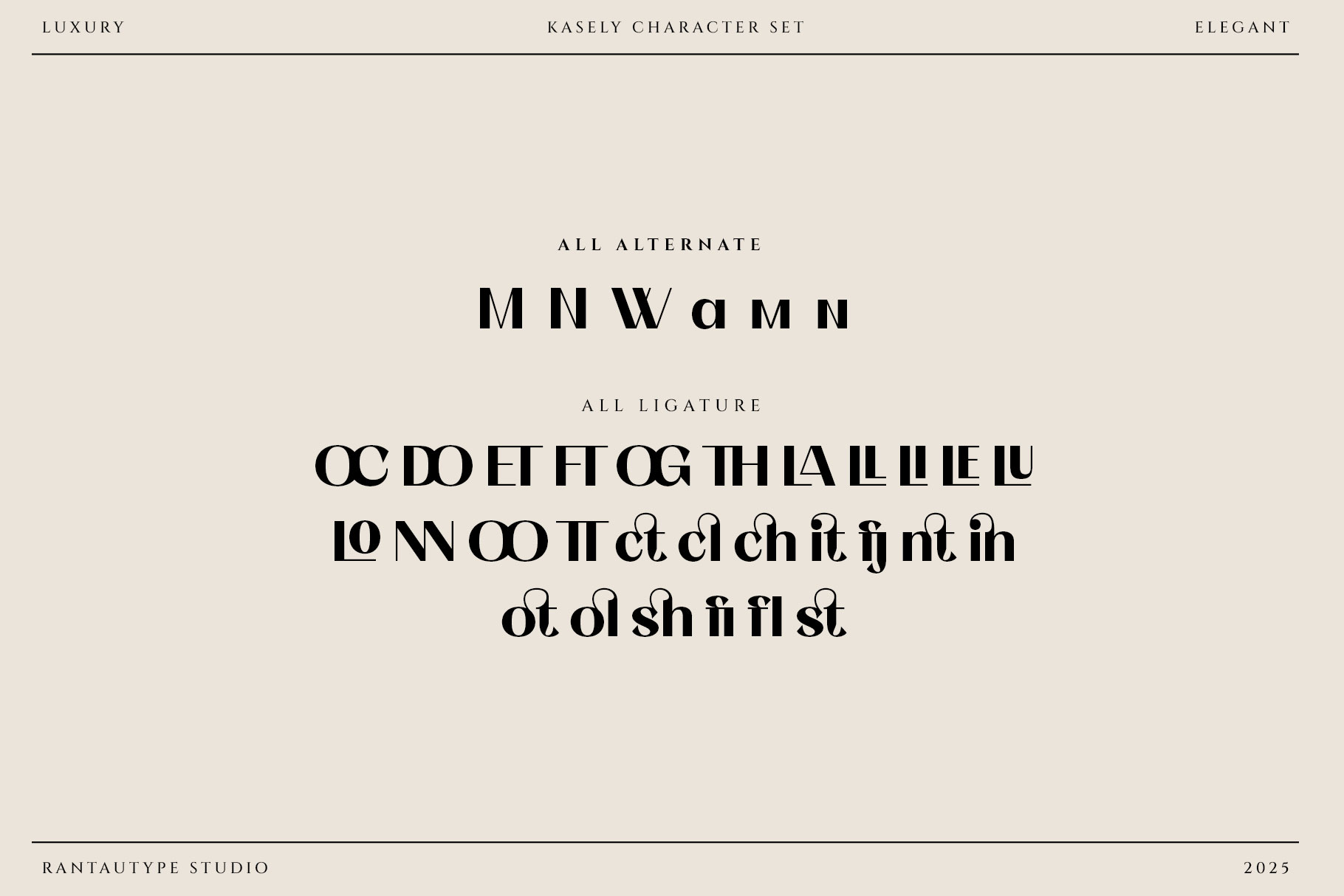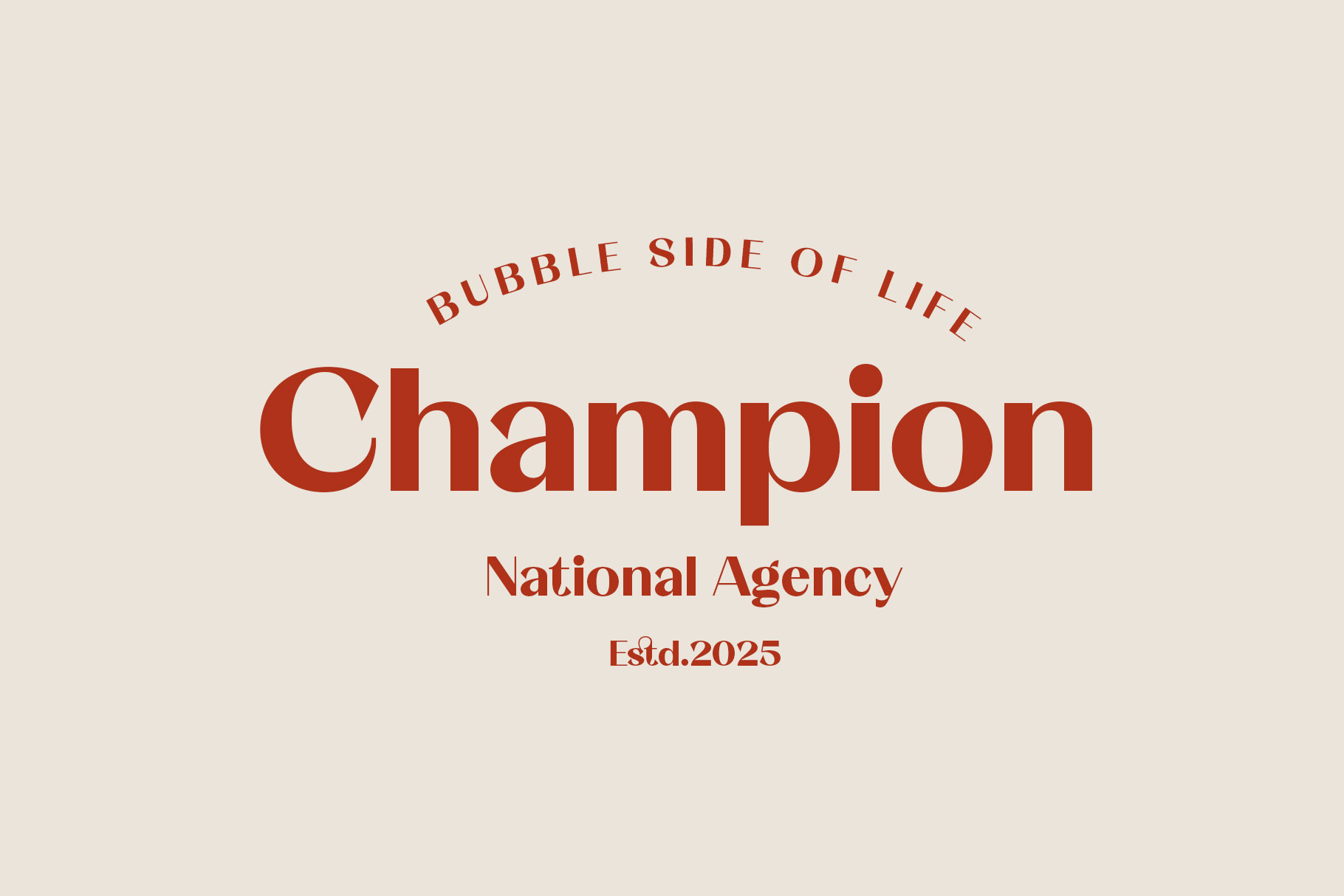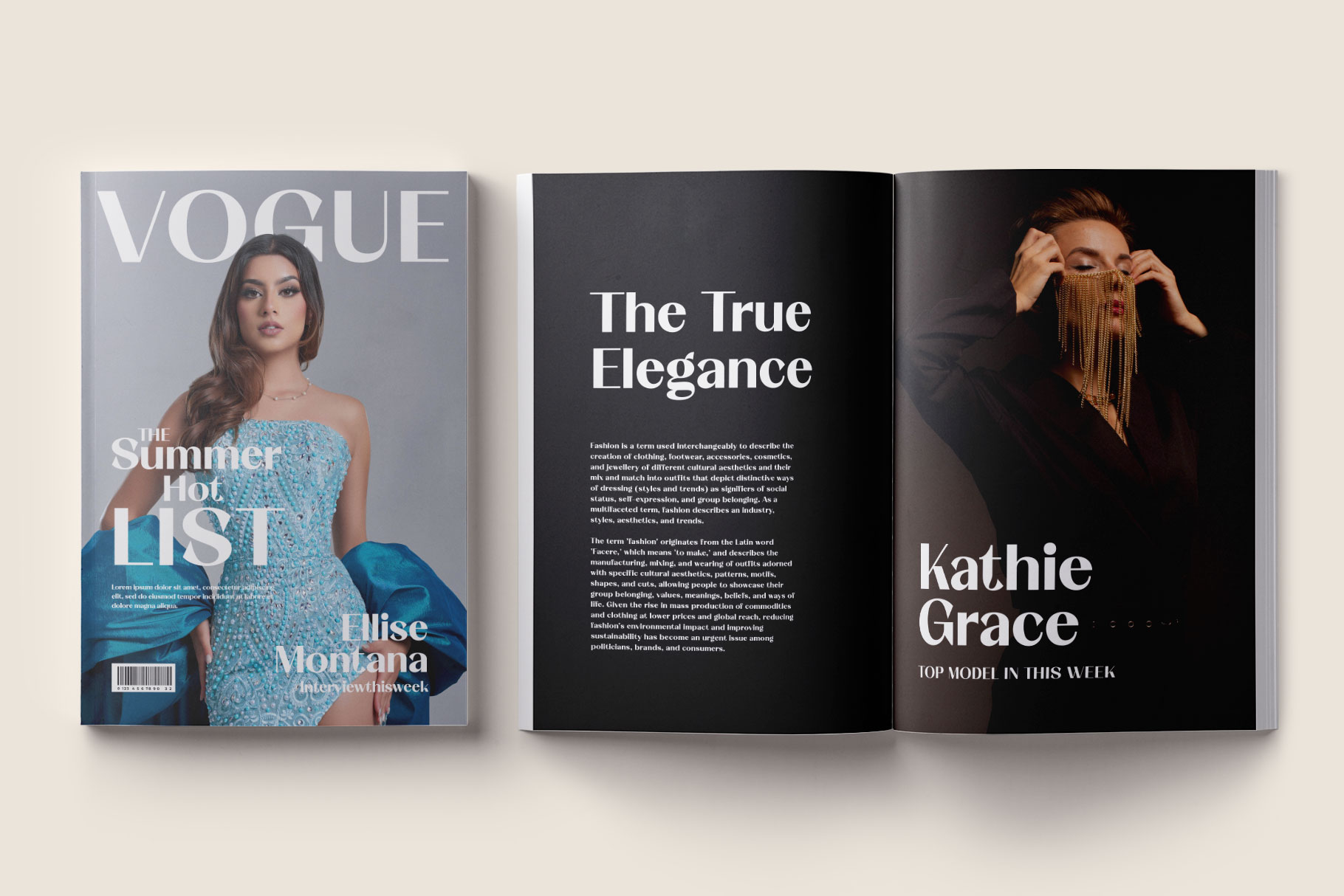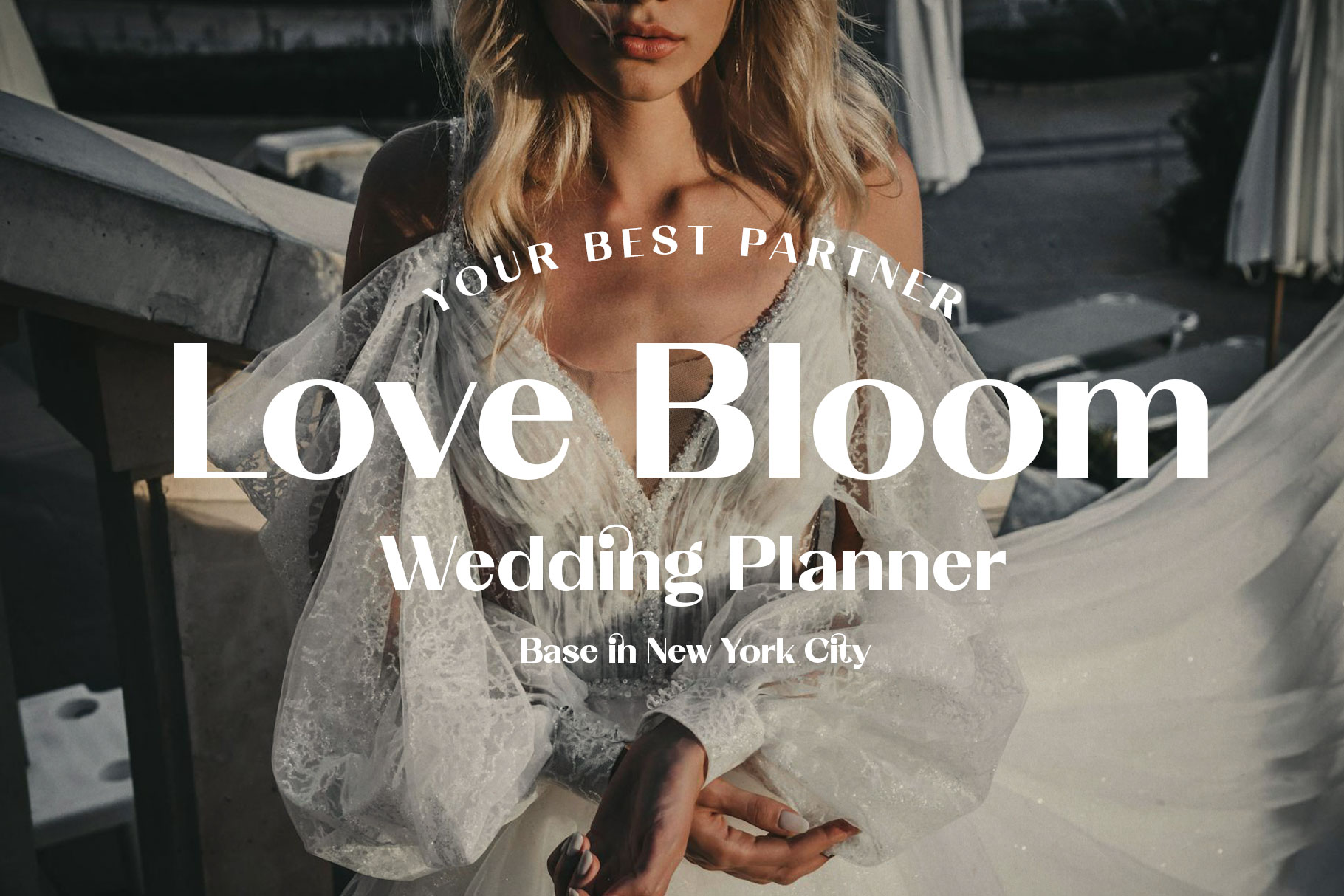
Kasely Classy Luxury Sans Font
Kasely is classy luxury font made with love and passion. Kasely is a professional choice for any creative endeavor, chic, lifestyle design such as logotype, advertisements, watermark on photography, stationery, branding project, display and magazine, invitation, corporate brand, product design, label, business project and many other project with modern touch.